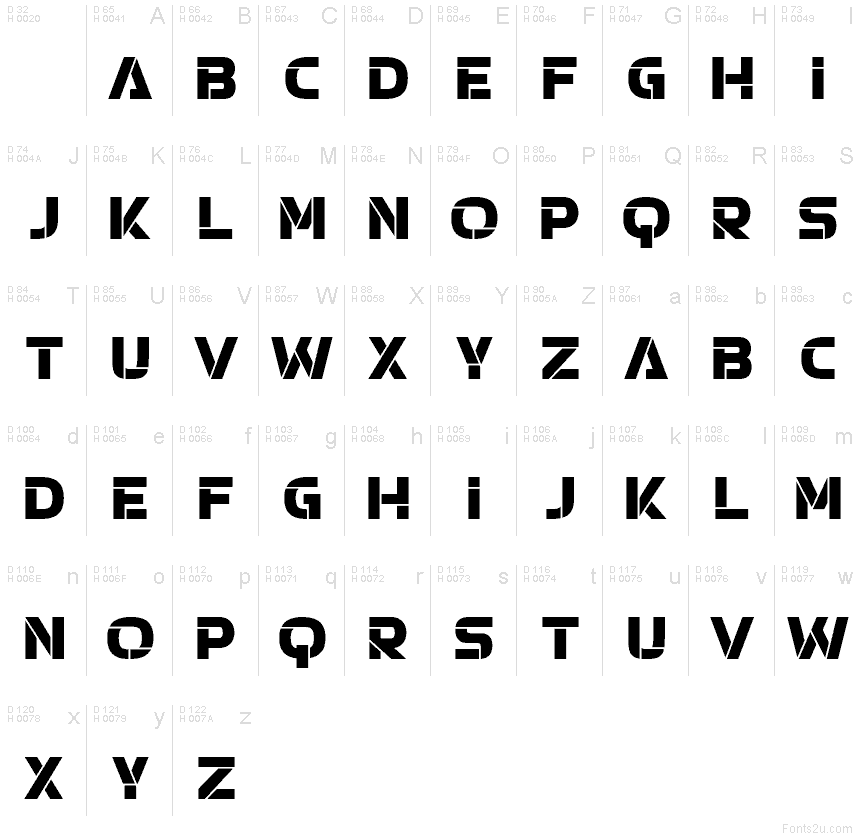
Forresten
Forresten font by Shanaya Studio is a free futuristic stencil display font. Its defining move is the razor-cut gaps and angled slices that turn heavy blocks into something fast and aerodynamic. The letters feel machined—compact widths, squared curves, and crisp negative “vents” that keep the mass from feeling bulky. It reads like industrial hardware reimagined for sci‑fi interfaces, striking a confident rhythm at large sizes.
Using Forresten, headlines snap into place with a bold, mechanical cadence that shines on sci‑fi posters, esports branding, tech conference graphics, automotive decals, drone packaging, and game covers. Those segmented cuts add motion without sacrificing legibility, so you get impact and structure in one hit. Pair this free font with a clean geometric sans for body copy to keep the system tight and modern.